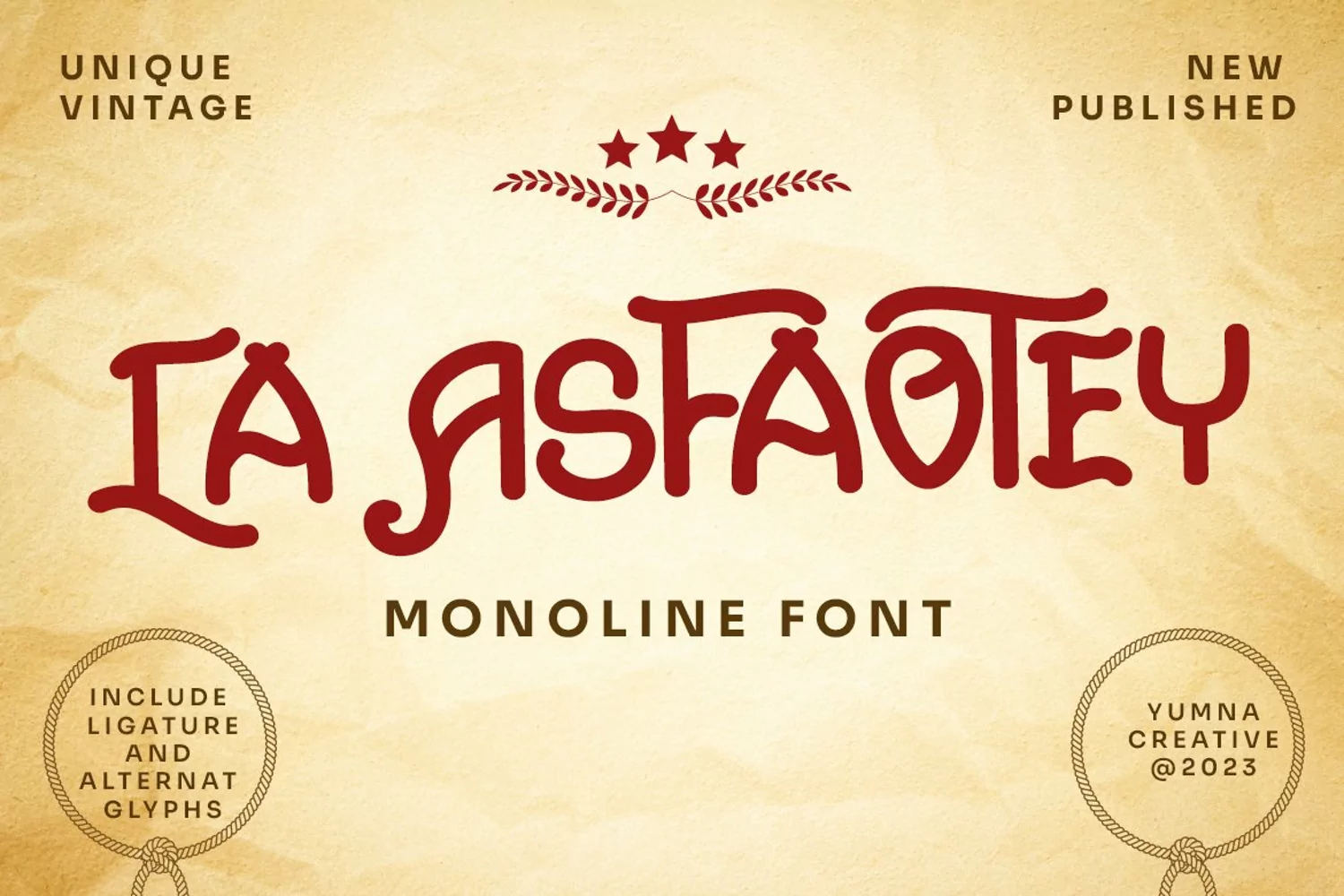
La Asfaotey - Monolite Vintage Font
Introducing **La Asfaotey - Monolite Vintage Font**
This Font is a delicate, elegant and flowing handwritten font. It has beautiful and well as a unique blend of ligatures a letter, so that the authors compose it with a and little swirly embedding, so that a modern font is formed and ready to make a statement by adding elegant and unique flair to your next design project. Add it to your most creative ideas and notice how it makes them come alive!
**FEATURES**
- Uppercase and Lowercase letters
- Numbering and Punctuations
- Alternate
- Ligature
- Multilingual Supports